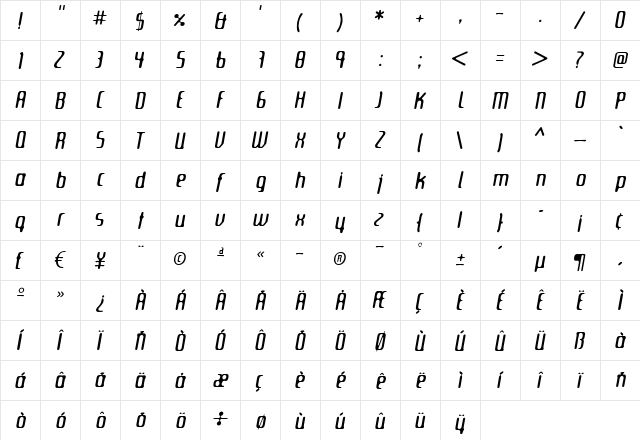
Ultranova Italic
Design Context for Ultranova Typeface
Ultranova is a composed and adaptable typeface that performs quietly and consistently across a wide range of design contexts. Its italic angle brings a sense of urgency and motion to the letterforms.
Pro Tip: Try Ultranova for annotation and caption copy alongside an upright companion — the contrast in angle creates a dynamic but ordered typographic system.